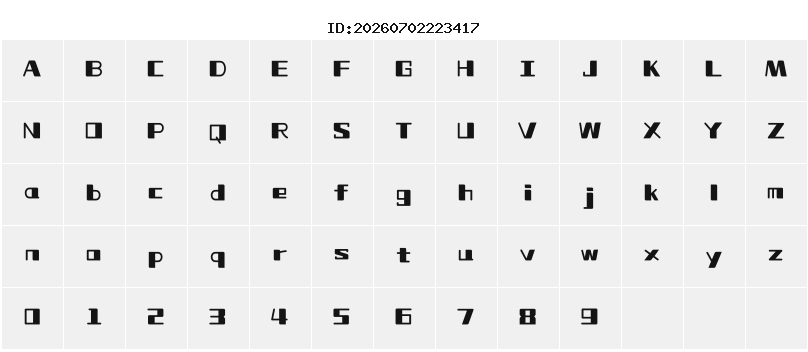
156-上首曲奇体 Preview
• Font Name: 156-上首曲奇体
• Full Font Name: 156-上首曲奇体
• Version: Version 6.00 July 25, 2023
• Manufacturer: 上首造字
About 156-上首曲奇体.ttf
156-上首曲奇体.ttf is a modern, elegant sans-serif font designed for ultimate readability and visual harmony. Perfect for branding, headlines, web design, and print materials.